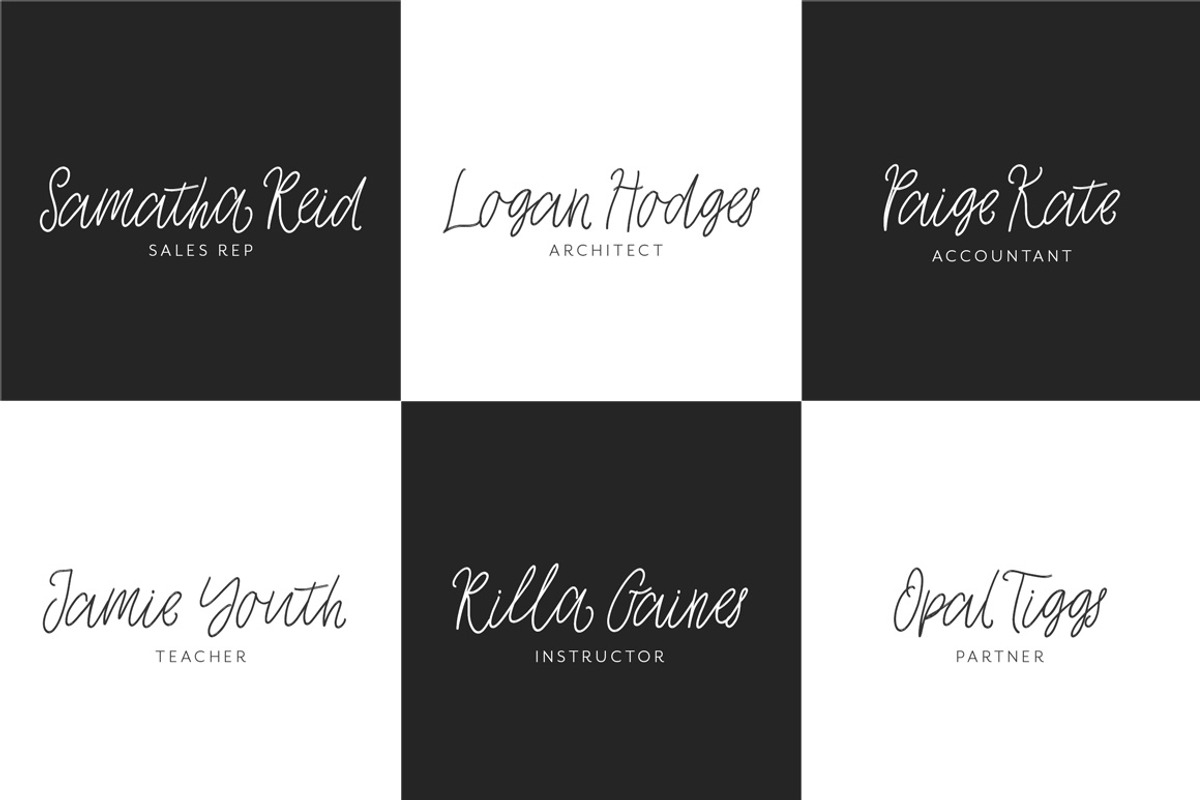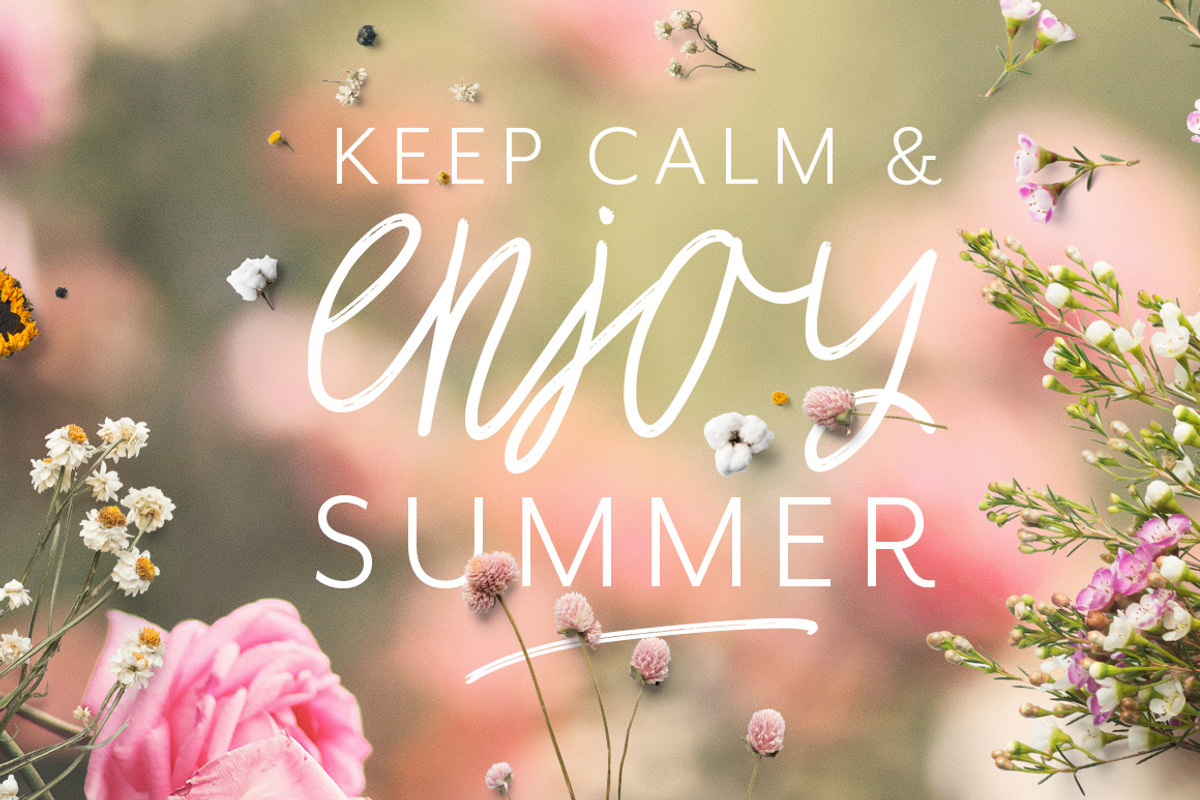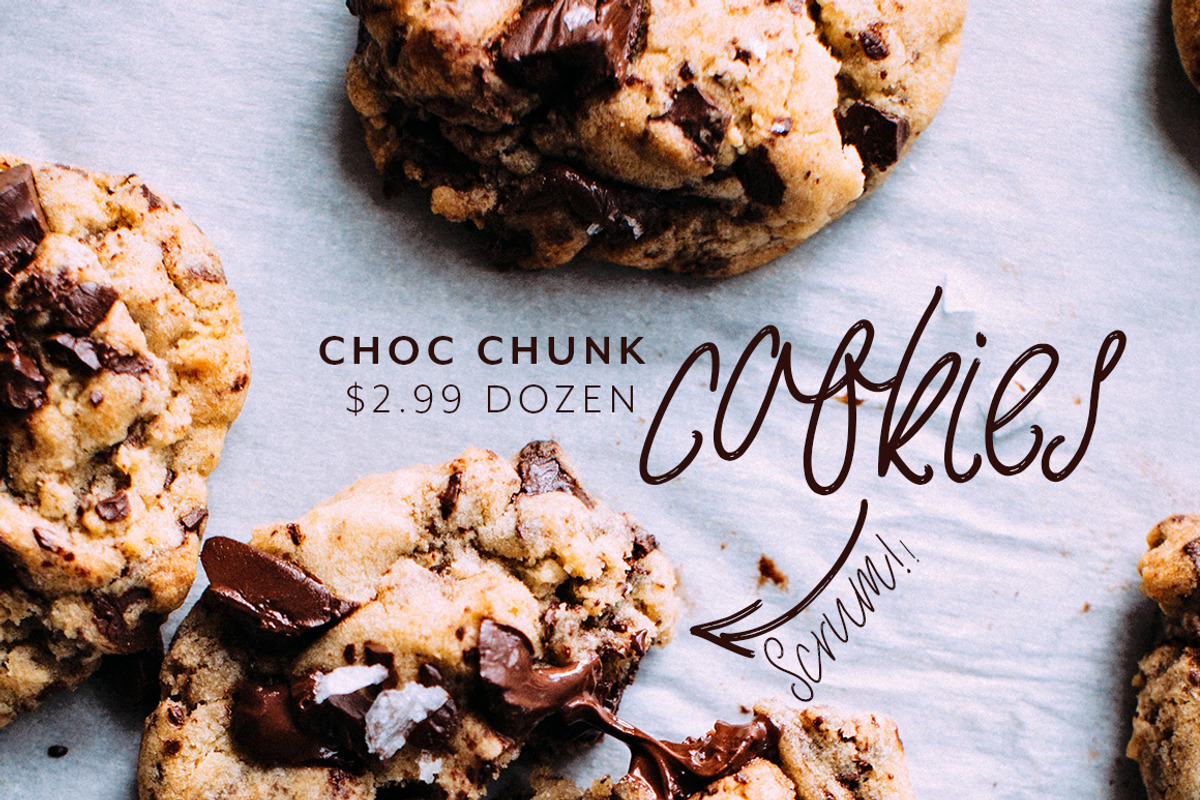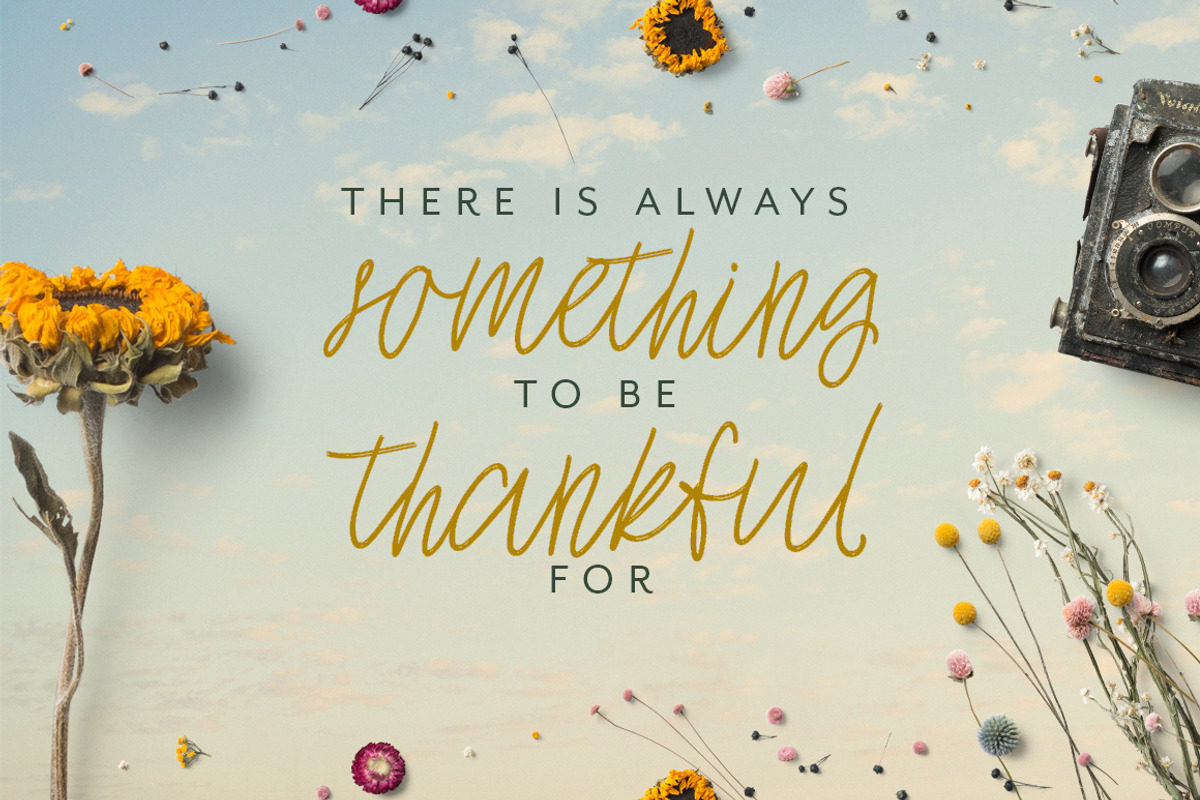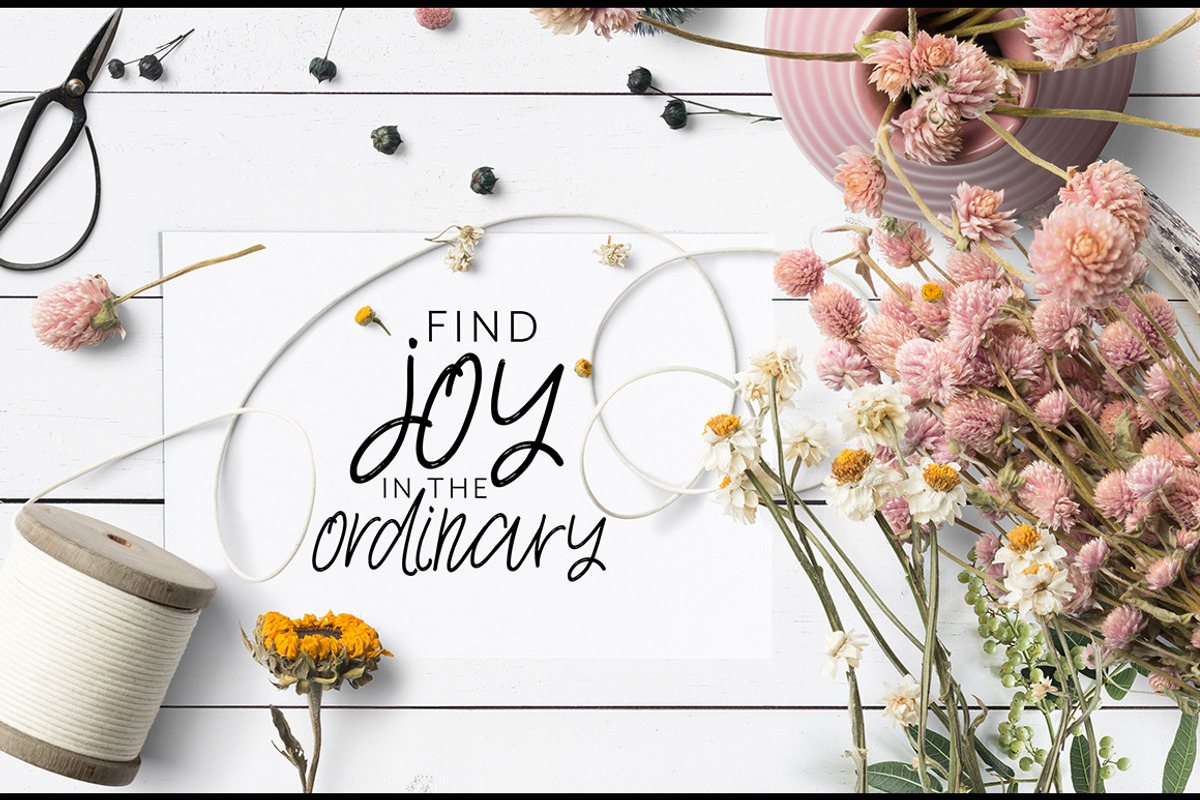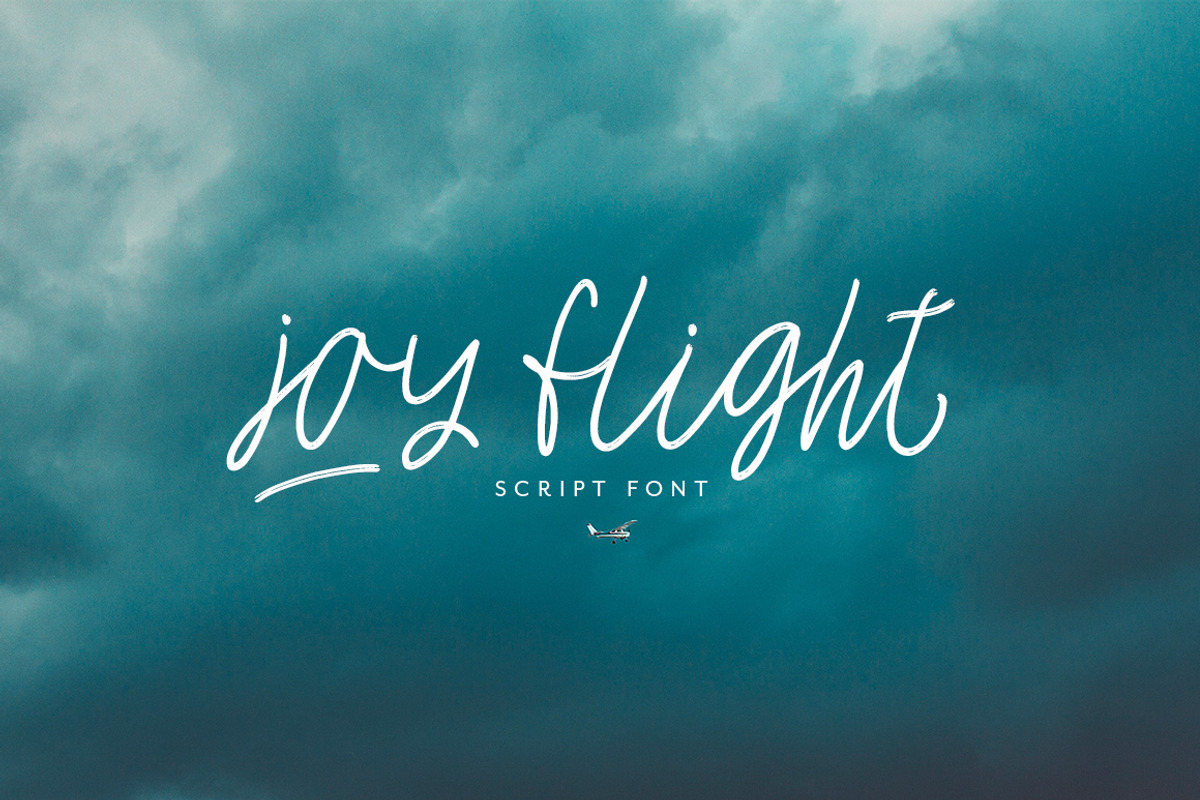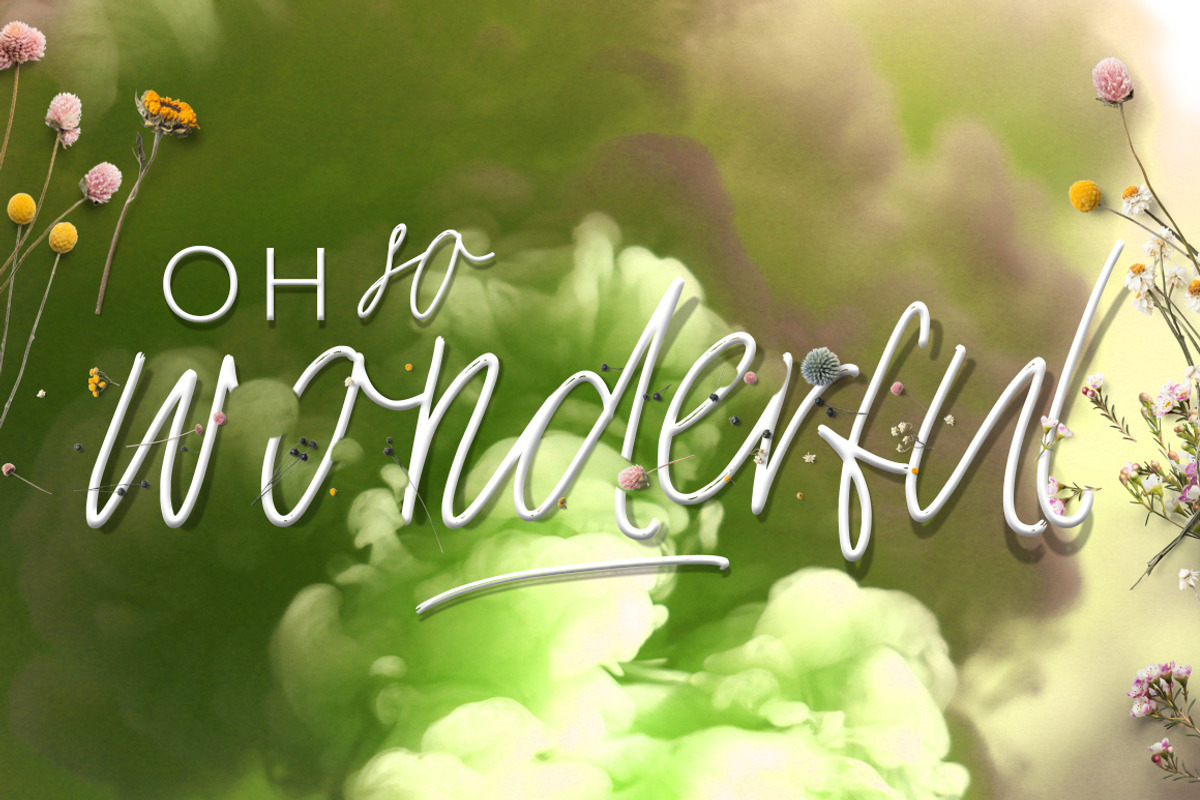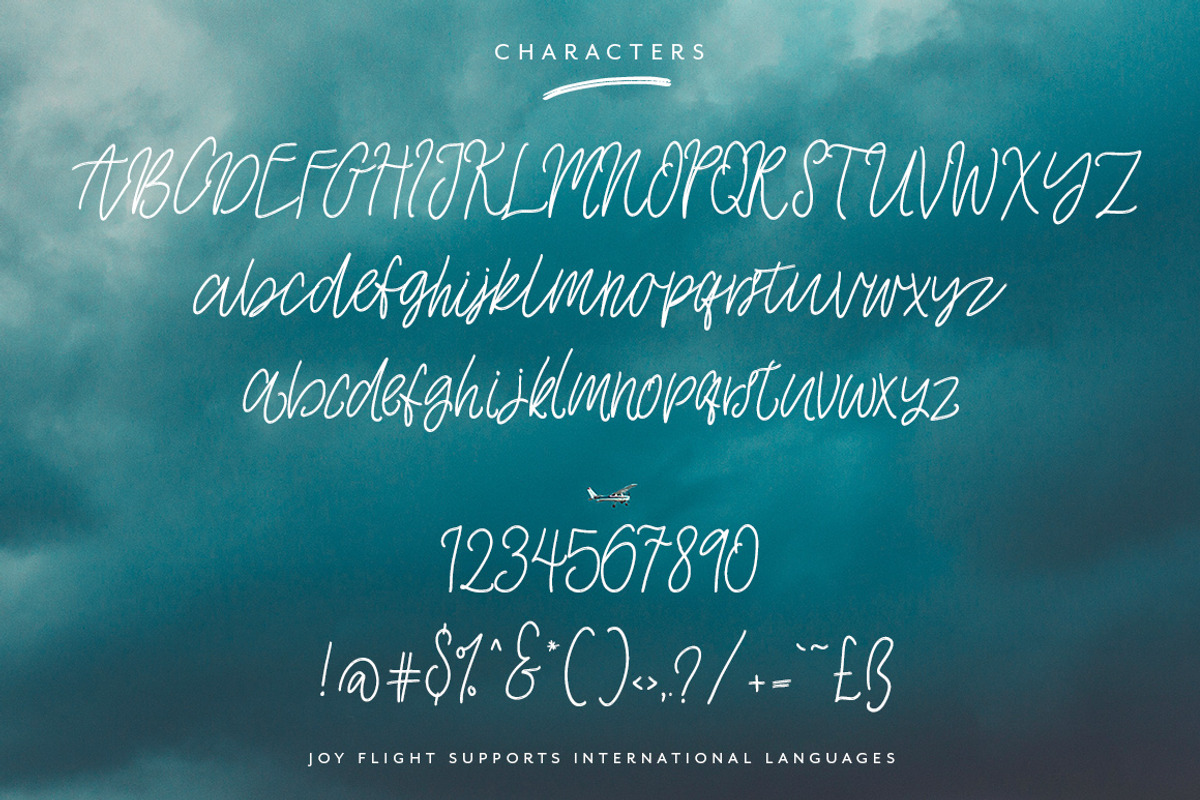
Joy Flight Script Font
NEW IntroducingJoy Flight - a textured ball point pen script font!
Smooth and bouncy, yet with an imperfect texture,Joy Flight is the perfect signature style font for branding, invites, logos, quotes, posters, packaging, and so much more!
Joy Flightcomes in Regular and Italic, plus alternates and a set of hand drawn extras for a bit of fun.
There is a full set of lowercase alternates, which are included in the Regular file as Open Type feature for ending words. This set of alternates are also included as a separate font file for those who don't have access to Open Type.
There is also standard ligatures (double letters) such as aa, bb, ee, ff, ii, ll, mm, oo, pp, rr, ss, tt, and th.
Joy Flight supports international languages.